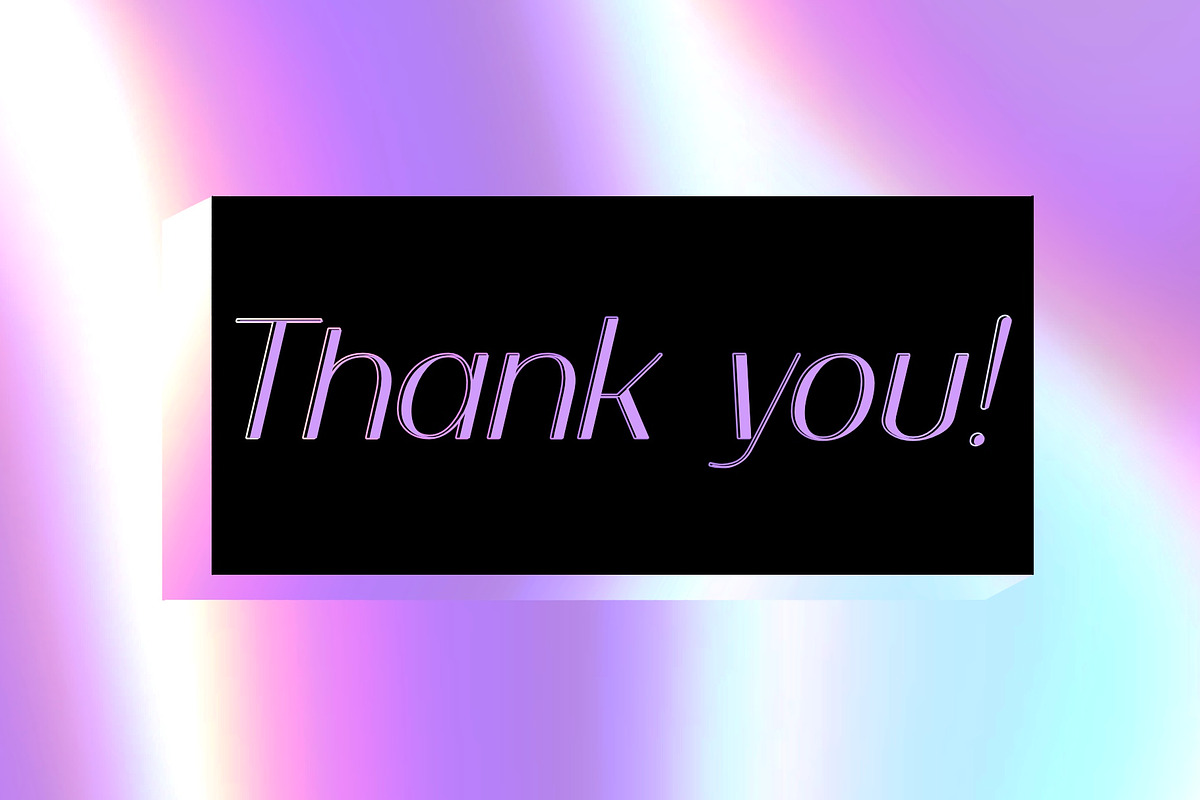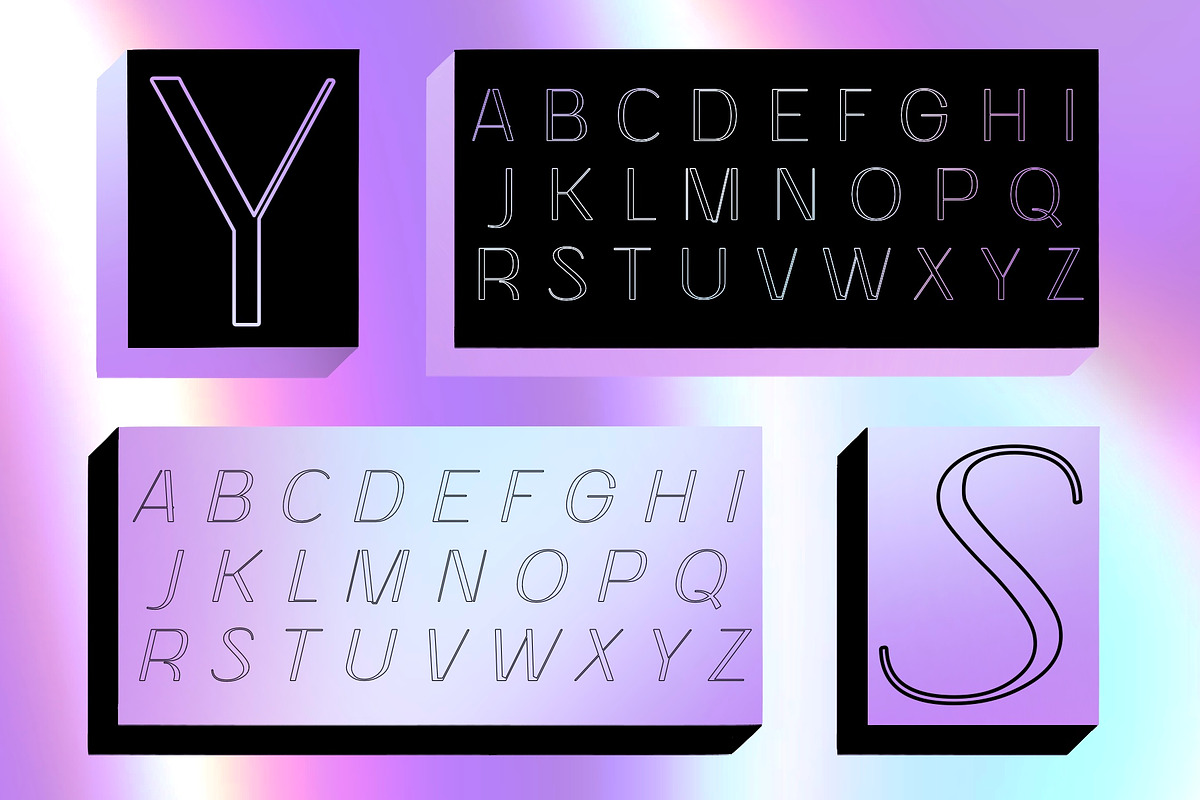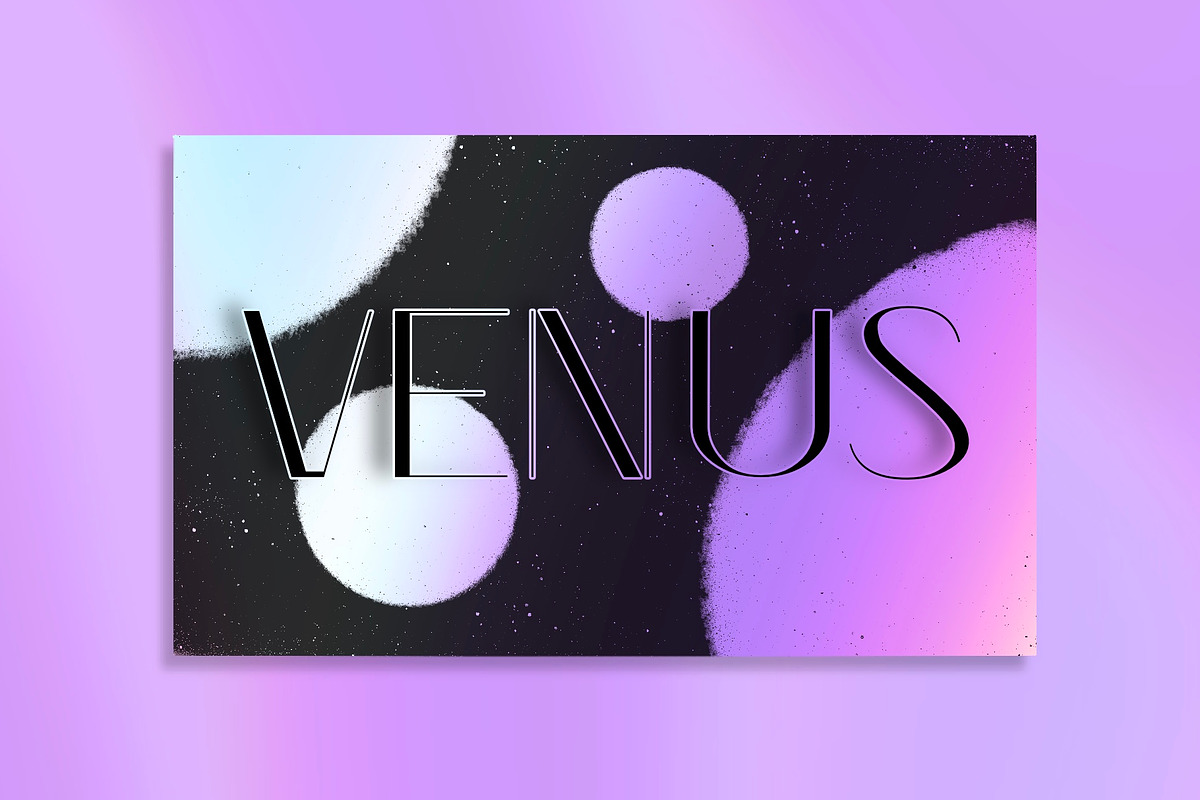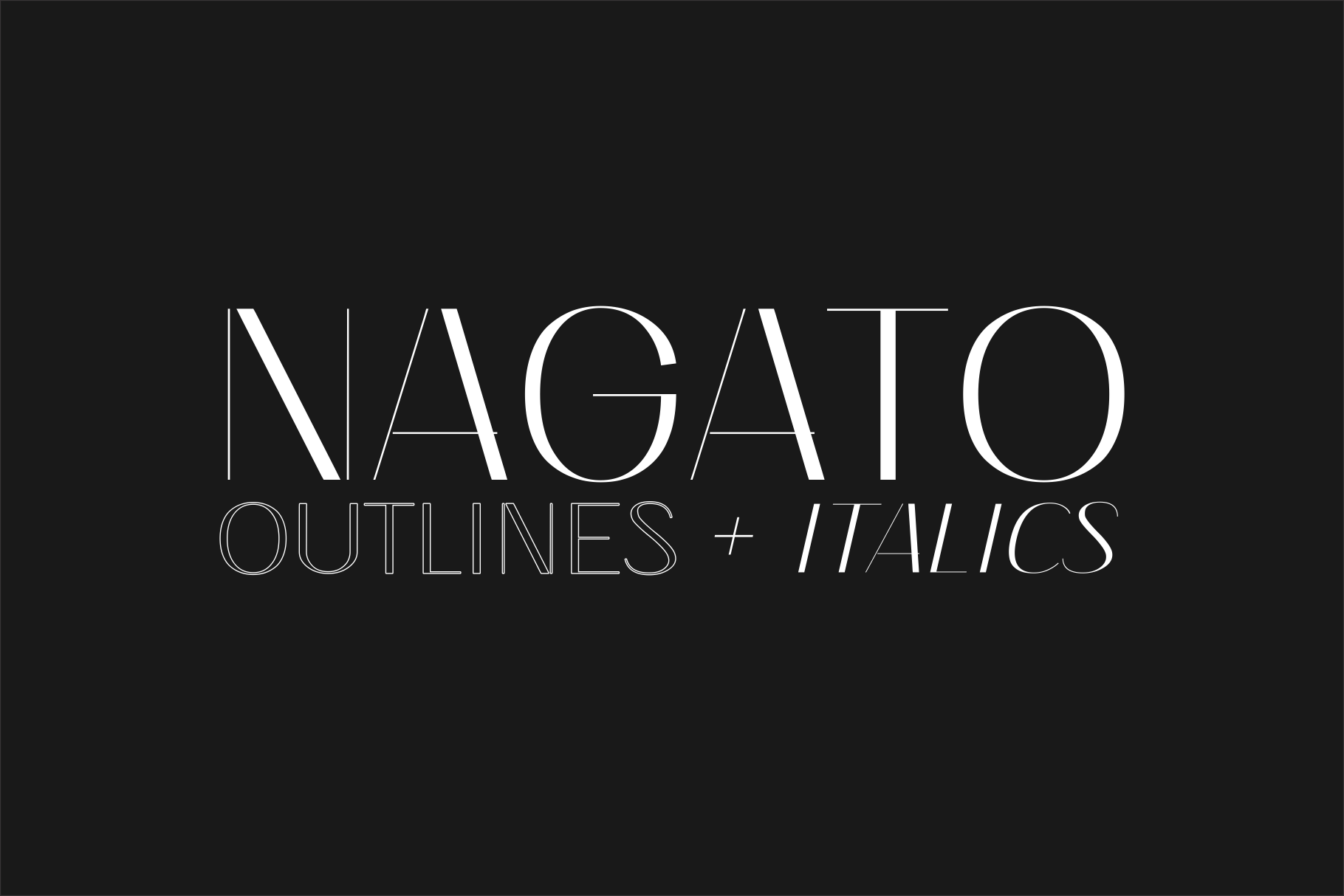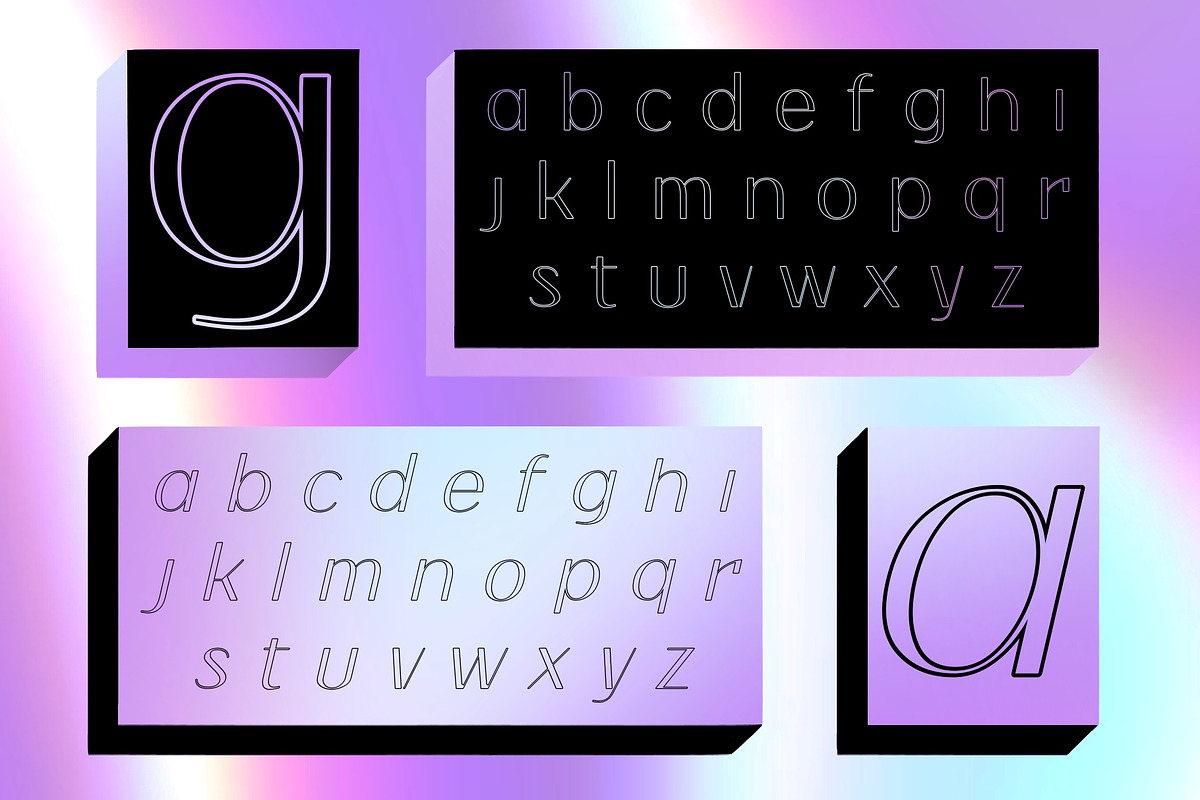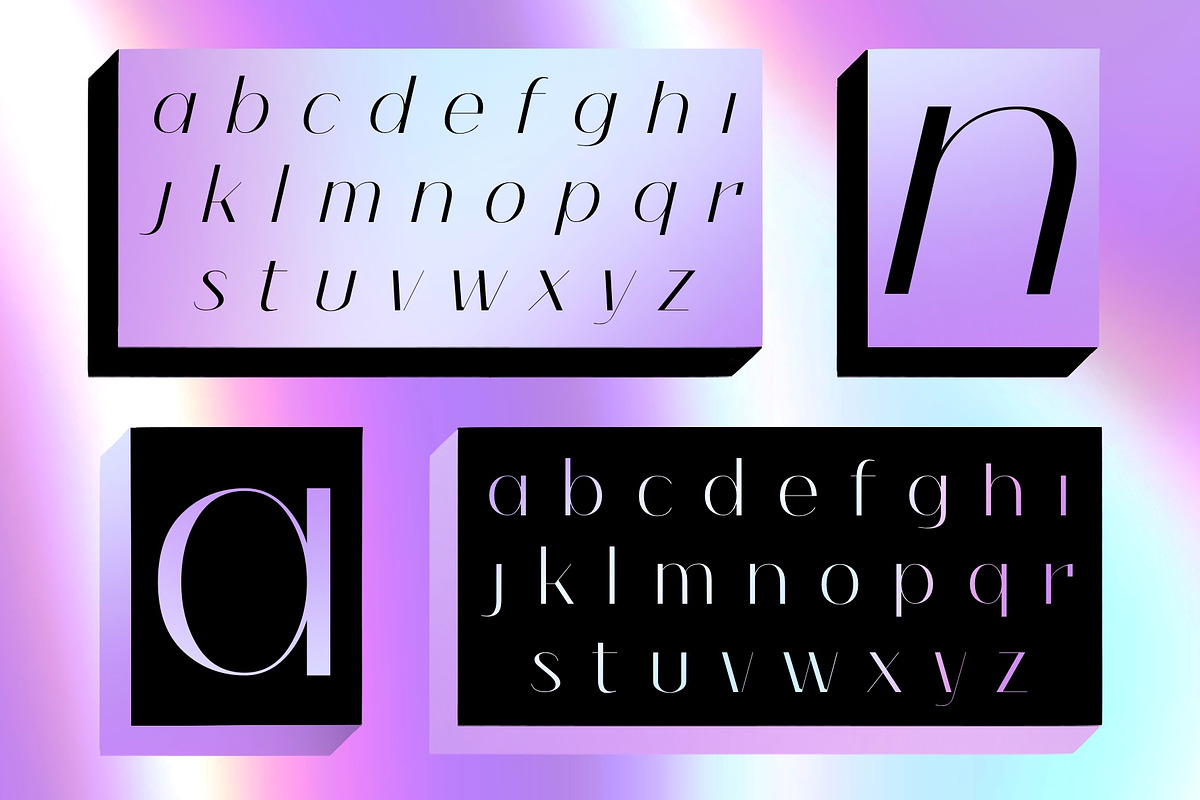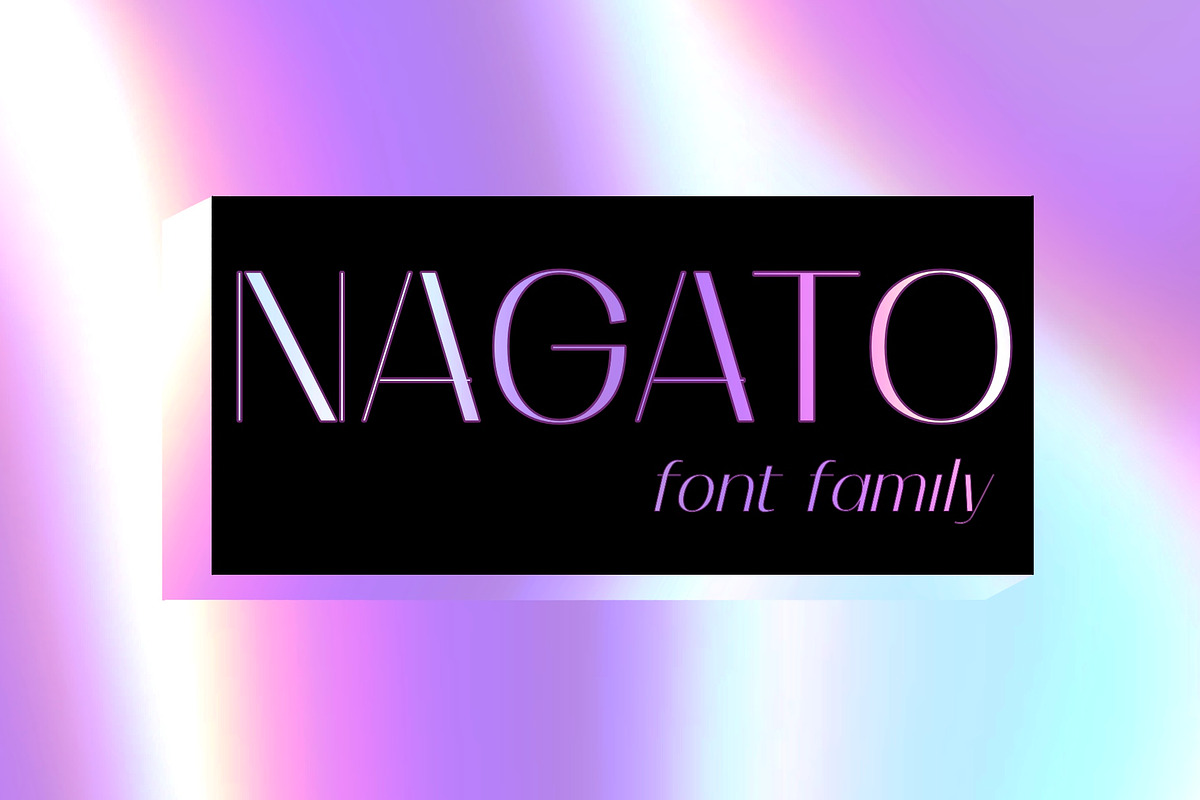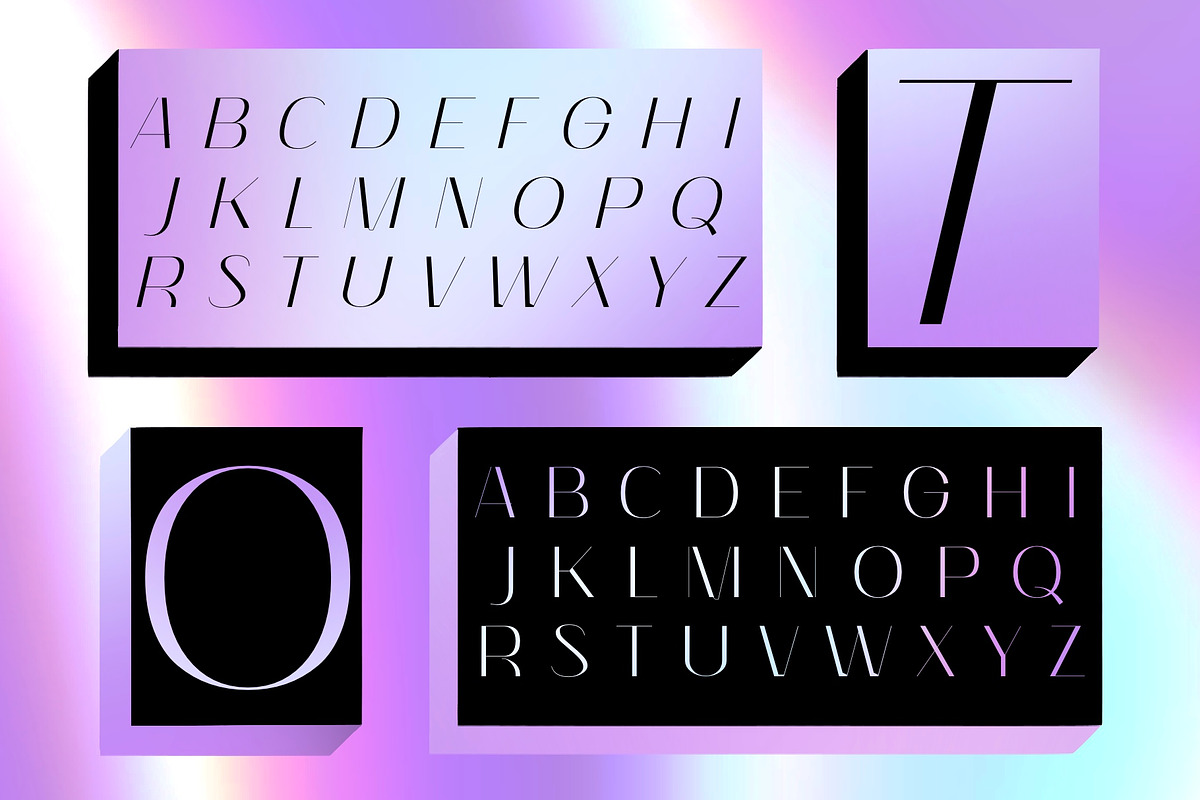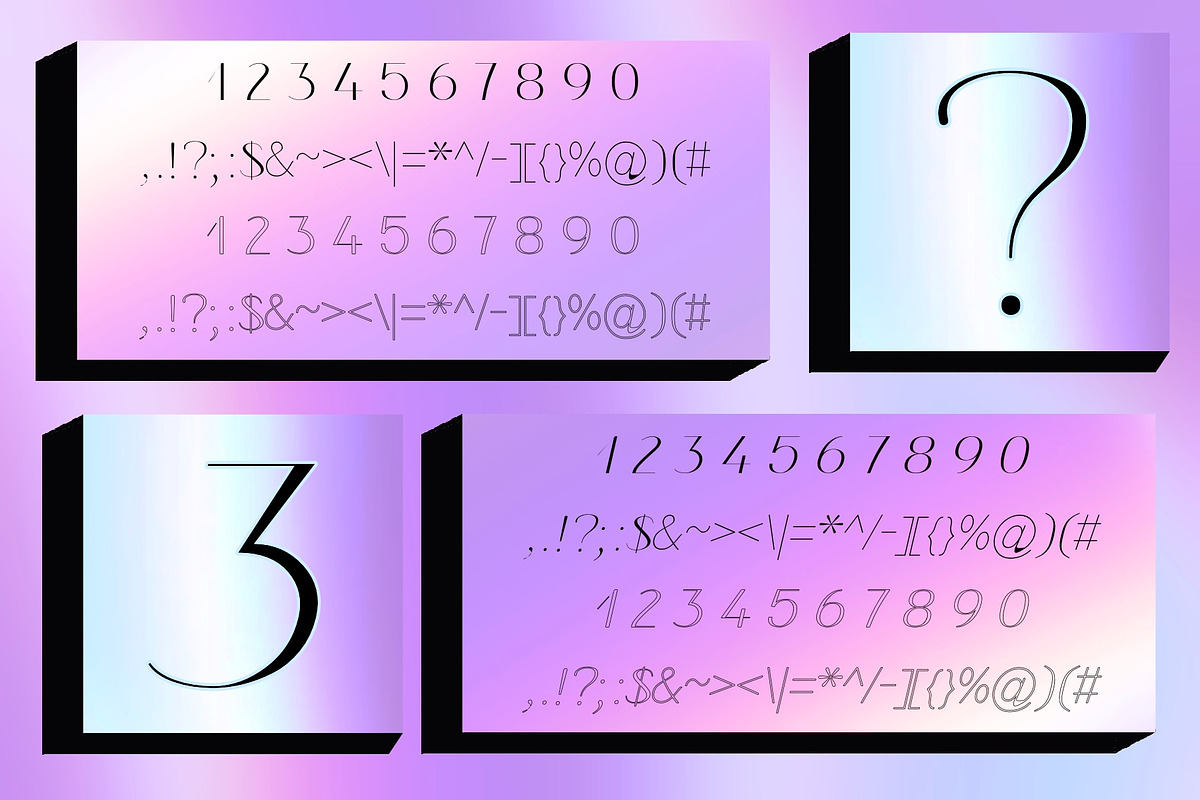
Nagato Display Font Family
Nagato, your favourite clean and elegant sans serif, pseudo-stencil font, extended its family!
Now you can have:
- Nagato Regular
- Nagato Italic
- Nagato Outline
- Nagato Outline Italic